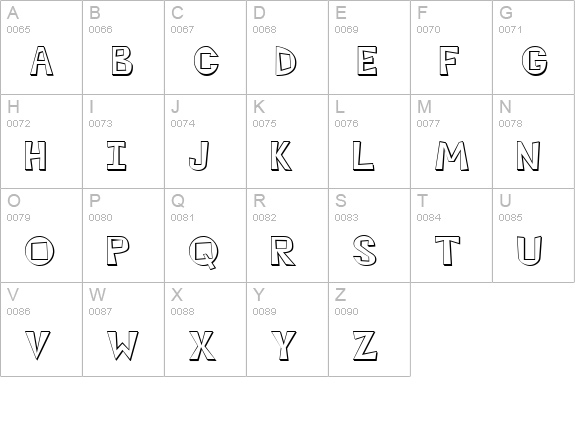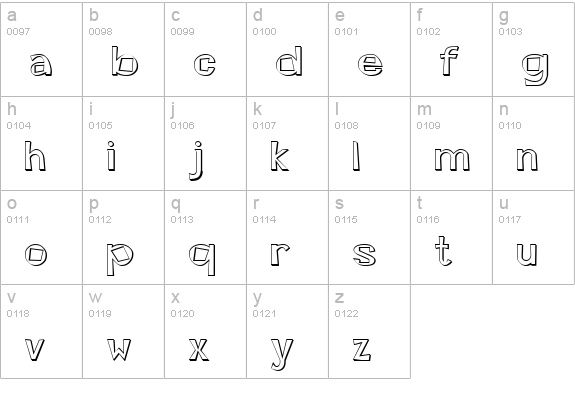
OnedinOutline Font Details
OnedinOutline font is a beautifully crafted typeface that exudes elegance and sophistication. With its sleek lines and unique design, this font is perfect for adding a touch of class to any project. The sharp outlines of the letters give it a modern and clean look, making it versatile for a variety of design applications. The best part? OnedinOutline font is available for free download at FontsMarket.com. That's right, you can elevate your designs with this stunning font without breaking the bank. Whether you're working on branding, advertising, invitations, or any other creative project, OnedinOutline font will surely make a statement. Download it now and let your creativity shine with this exquisite typeface.